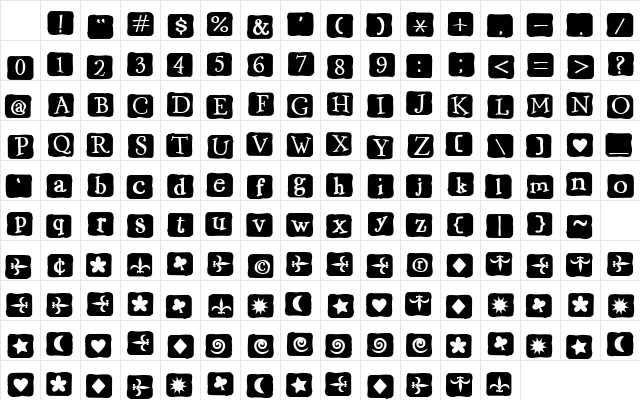
2Peas Flea Market Block Irregular Regular
Design Context for 2Peas Flea Market Block Irregular
2Peas Flea Market Block Irregular is a composed and adaptable typeface that performs quietly and consistently across a wide range of design contexts.